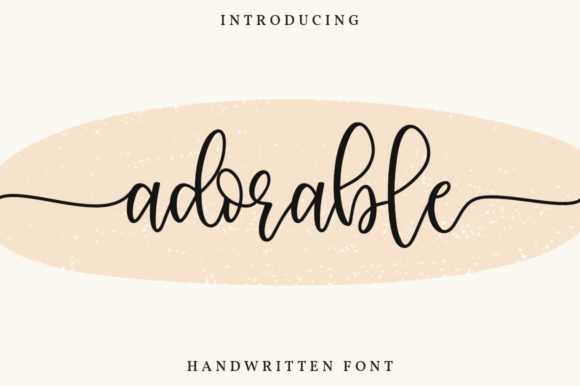
The Adorable Font: A Modern Calligraphy Dream Come True
I’ll never forget the time I was working on a wedding stationery project, and my client asked for a font that was elegant, yet playful. I scoured the internet, trying out font after font, but nothing seemed quite right. That was until I stumbled upon Adorable, a modern calligraphy font that has since become a staple in my design toolkit.
What Makes Adorable So Special?
Adorable is a beautifully crafted font that boasts smooth flows and a touch of whimsy. It’s perfect for a variety of design projects, including logos, wedding stationery, cards, gift designs, photography, watermarks, product packaging, and handwritten quotes.
The best part? Adorable is PUA encoded, which means you can access all of the glyphs and swashes with ease! This makes it incredibly versatile and a joy to work with.
- ✨ Smooth, flowing lines that give my designs a touch of elegance
- 💕 Perfect for a variety of design projects, from logos to wedding stationery
- 👍 Highly legible, even at smaller font sizes
- 🤔 Some users may find the font a bit too script-like for certain projects
- ⚠️ May not be suitable for very formal or traditional designs
The Designer Inspiration Behind Adorable
While the true story behind Adorable’s creation may be unknown, it’s easy to imagine a designer sitting at their desk, pen in hand, pouring their heart and soul into creating a font that would bring joy to others. Perhaps they were inspired by the flowing lines of handwritten calligraphy, or the whimsy of modern script fonts. Whatever the inspiration, Adorable is a true masterpiece.
Q: What is Adorable font best used for?
A: Adorable is perfect for a variety of design projects, including logos, wedding stationery, cards, gift designs, photography, watermarks, product packaging, and handwritten quotes.
Q: Is Adorable easy to read?
A: Yes, Adorable is highly legible, even at smaller font sizes. However, it may not be suitable for very long blocks of text.